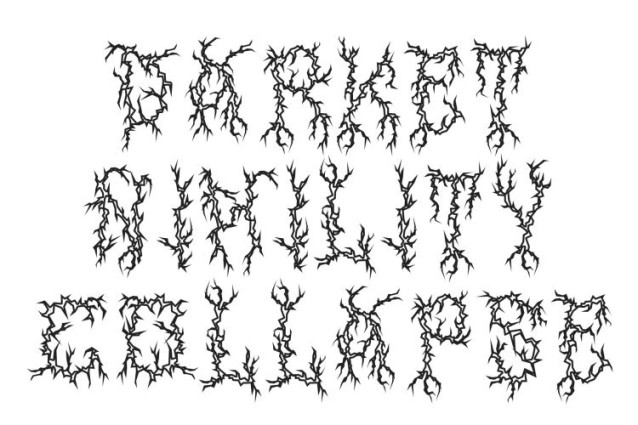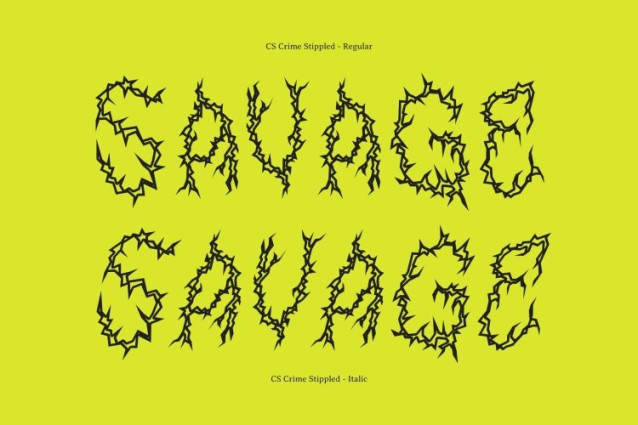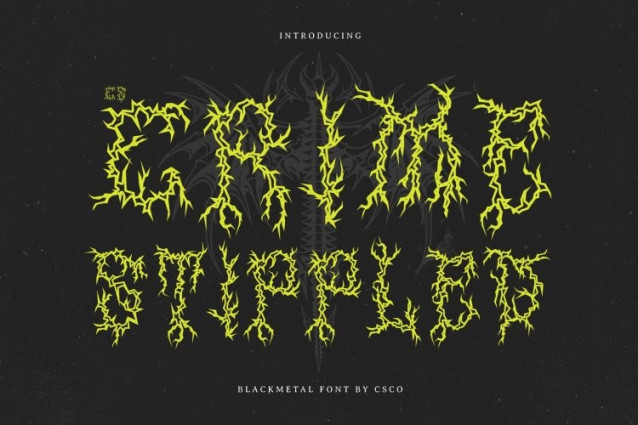
CS Crime Stippled Font
CS Crime Stippled Font – This is a bold and intricate display font designed to capture the raw, gothic intensity of black metal culture. Its aggressive letterforms feature sharp, branching shapes and jagged edges reminiscent of thorny vines and chaotic natural forms. The overall structure delivers a dark, rebellious atmosphere, making the font ideal for designs that embrace mystery, power, and extreme visual expression.
Jagged Forms with Stippled Texture
The striking letterforms of this font are enhanced with a stippled texture that introduces a dense dotted surface inspired by traditional stippling and engraving techniques. This textured effect adds depth and grit to the sharp forms, reinforcing the raw and atmospheric character of the design. The combination of chaotic shapes and subtle texture creates typography that feels both organic and intense.
Dark Complexity with Enigmatic Appeal
The intentionally intricate and chaotic design results in lower readability, a defining characteristic of black metal typography. This complexity strengthens the mysterious and cryptic aura of the font, drawing viewers into its dark visual language and amplifying its dramatic presence.
Perfect for Extreme and Atmospheric Designs
This is ideal for album covers, band logos, posters, merchandise, and branding connected to metal music and dark artistic themes. By combining aggressive black metal forms with a textured stippled finish, the font delivers a powerful typographic statement that feels raw, atmospheric, and unmistakably intense.